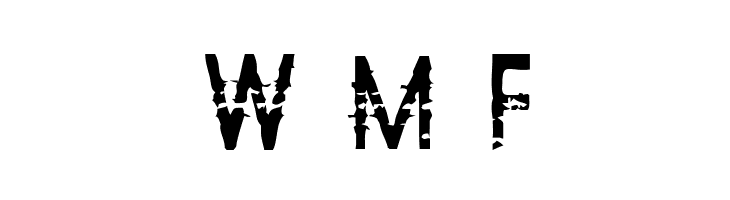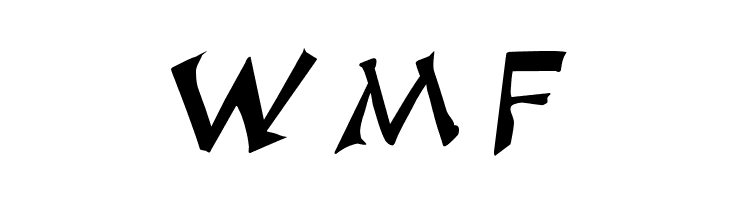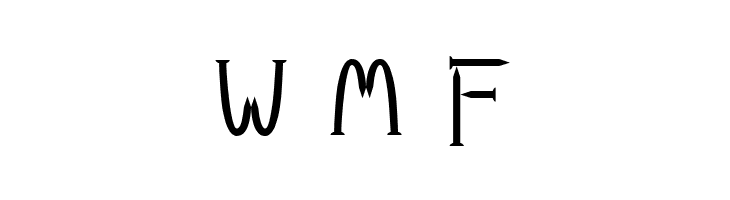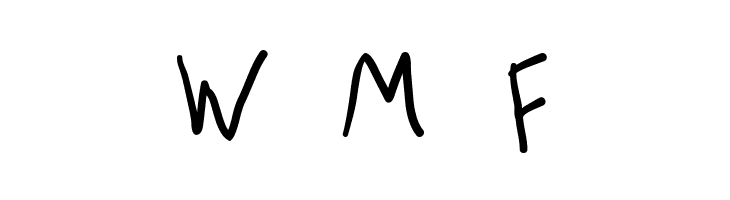
A classic serif font with whimsical curves and pointed serifs.
A bold, distressed font with a grunge, textured style.
An ornate, decorative font with bold, framed characters and intricate patterns.
A bold, playful font with a retro, three-dimensional style.
A playful, distorted font with quirky, energetic characters.
A bold, geometric font with sharp angles and solid shapes.
A bold, angular font with a futuristic and edgy design.
A futuristic, geometric font with rounded edges and a bold style.
A bold, geometric font with a futuristic and playful design.
A bold, geometric font with a futuristic and modern design.
A modern, bold, and geometric font with a futuristic style.
A modern, geometric font with a sleek and futuristic design.
A playful, handwritten font with rounded, uniform strokes and a casual feel.
A bold, playful font with rounded edges and a hand-drawn feel.
A playful, hand-drawn font with irregular, organic shapes and a whimsical style.
A collection of cowboy-themed clip art illustrations, not a traditional font.